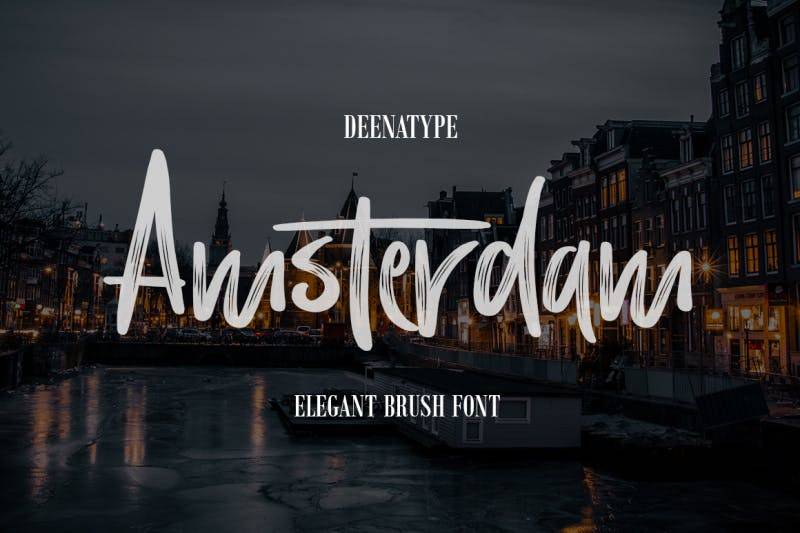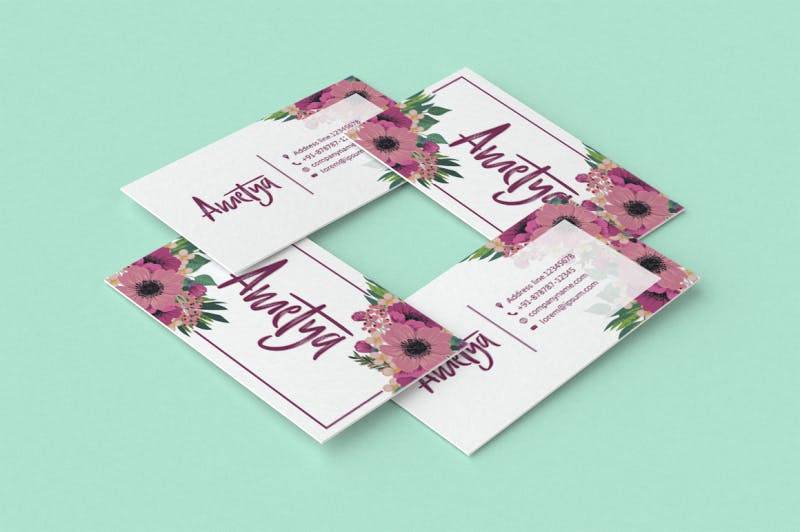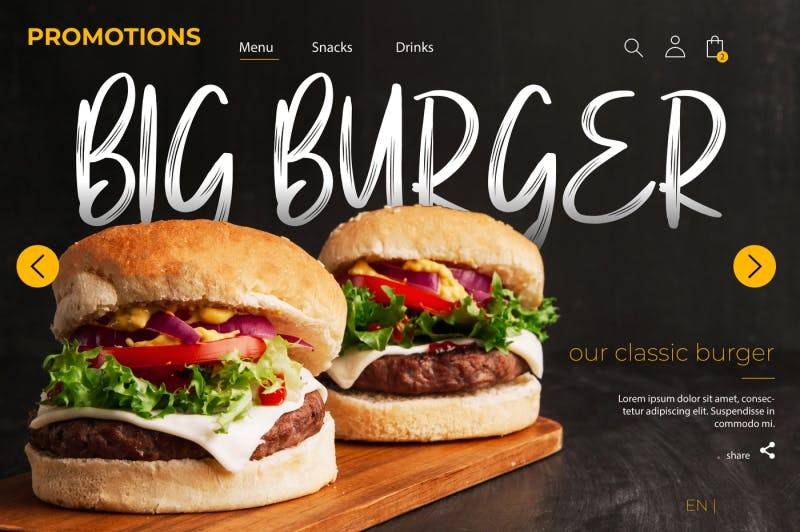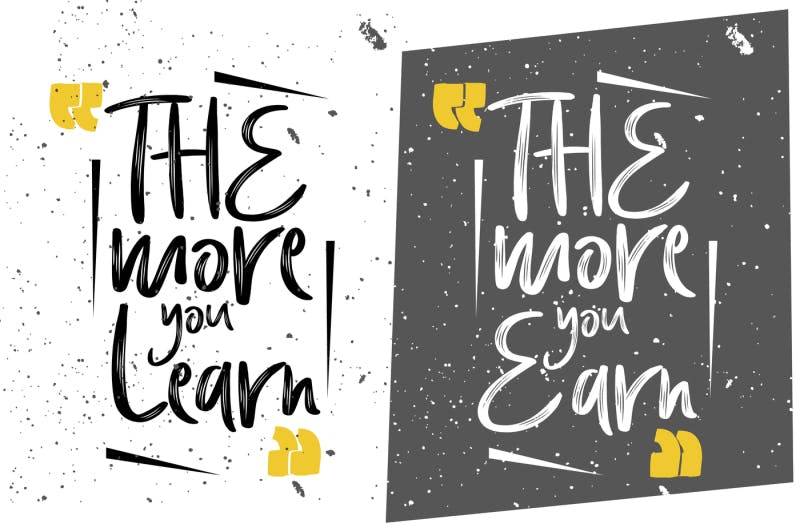
Amsterdam Brush Font Demo is a lively and casual brush script with a hand-drawn feel, featuring tall, slightly condensed letterforms and fluid strokes that vary in thickness for an energetic, artistic vibe. Its playful style and informal charm make it well-suited for creative projects like logos, posters, and packaging where a personal, approachable tone is desired. This font works best in display settings, adding personality and warmth to design work.
Amsterdam Brush Font Demo
About Amsterdam Brush Font Demo